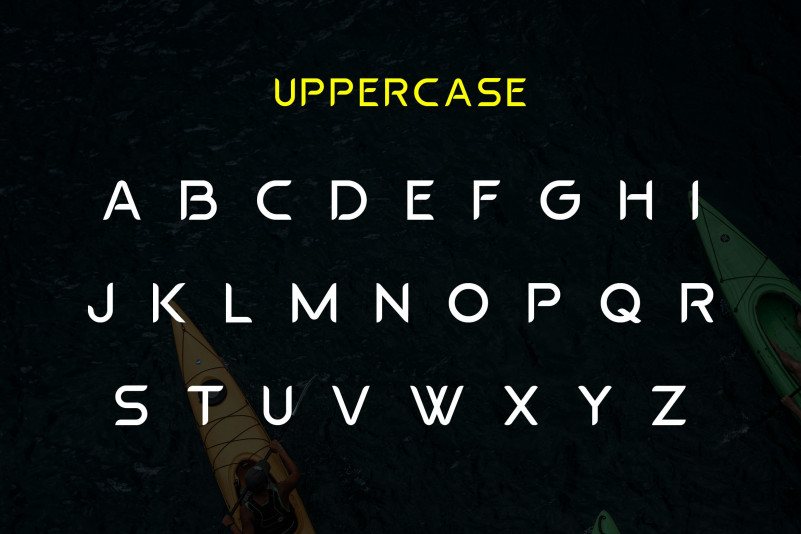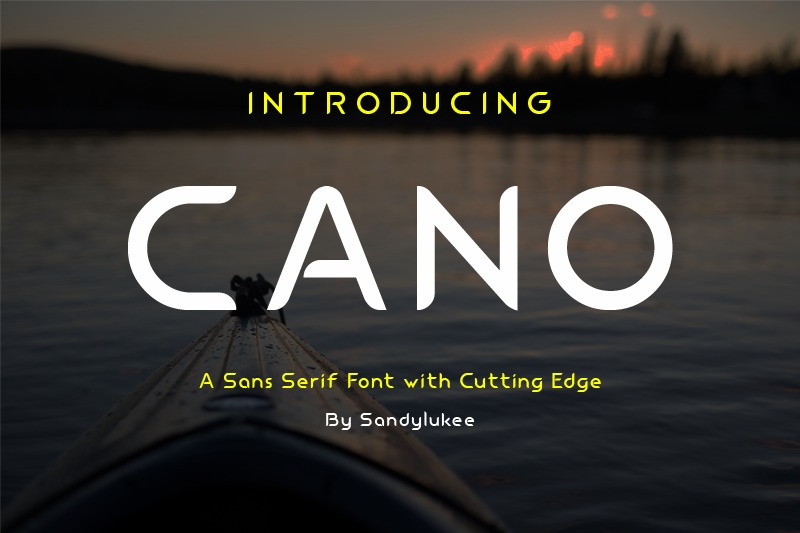
Cano Sans Serif Font
This is a simple and modern font that is as detailed as possible. This font is very suitable for the needs of branding, logos, technology themes and others. very easy to use and can be installed on any graphics software such as Adobe illustrator, photoshop, Microsoft Office and others.